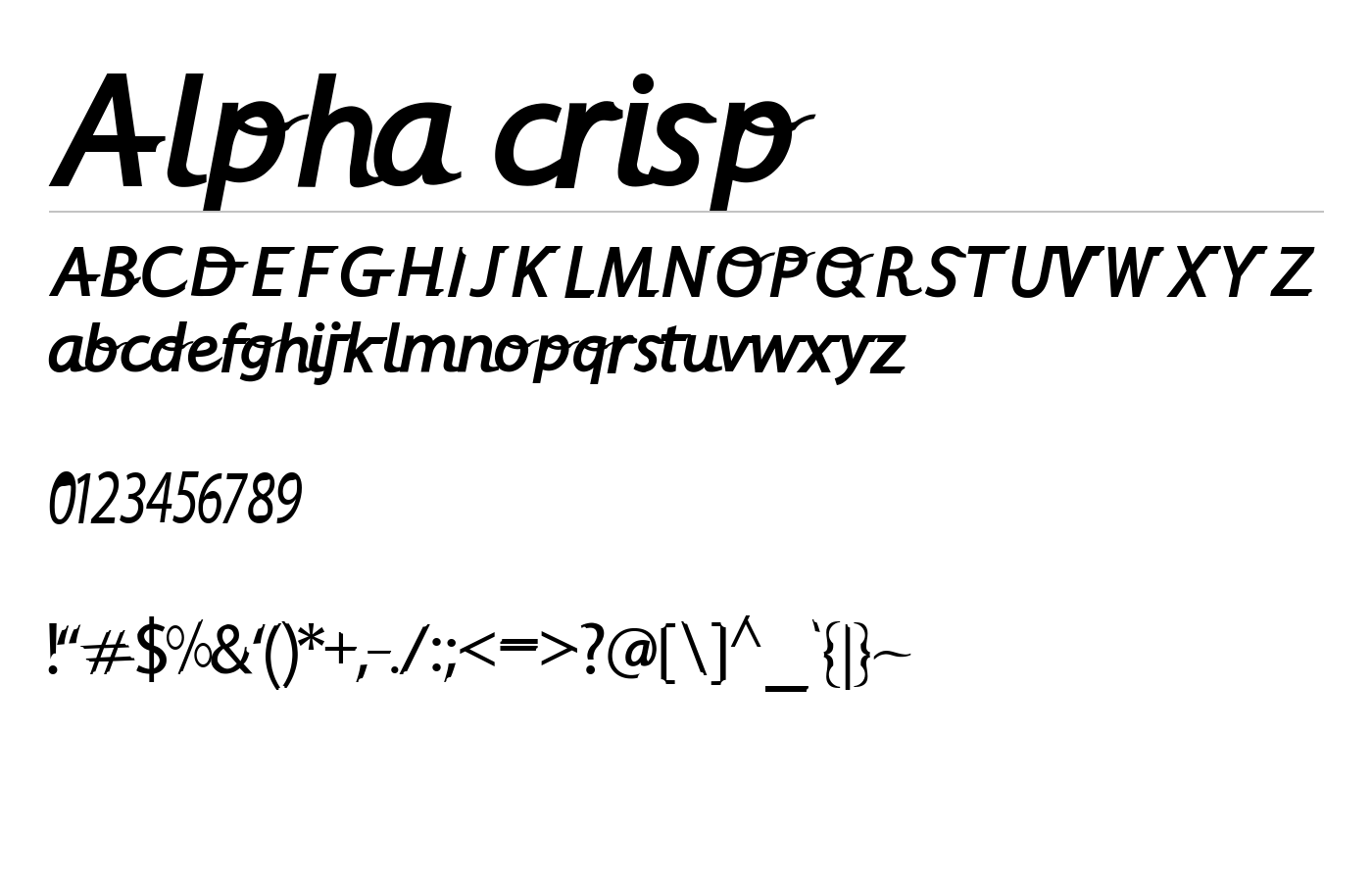
Alpha Crisp is a sleek, modern sans serif font with a slightly condensed and dynamic italic style that gives it an energetic, forward-moving feel. Its clean, crisp strokes with moderate contrast and unique letterforms create a stylish yet readable typeface ideal for branding, headlines, and editorial use where a contemporary, confident look is desired. This font works well for creative projects and fashion-forward brands seeking a distinctive and elegant voice.
Alpha crisp Font
About Alpha crisp Font
| Font family | Alpha crisp Font |
| Designer | Richard.Colbert |